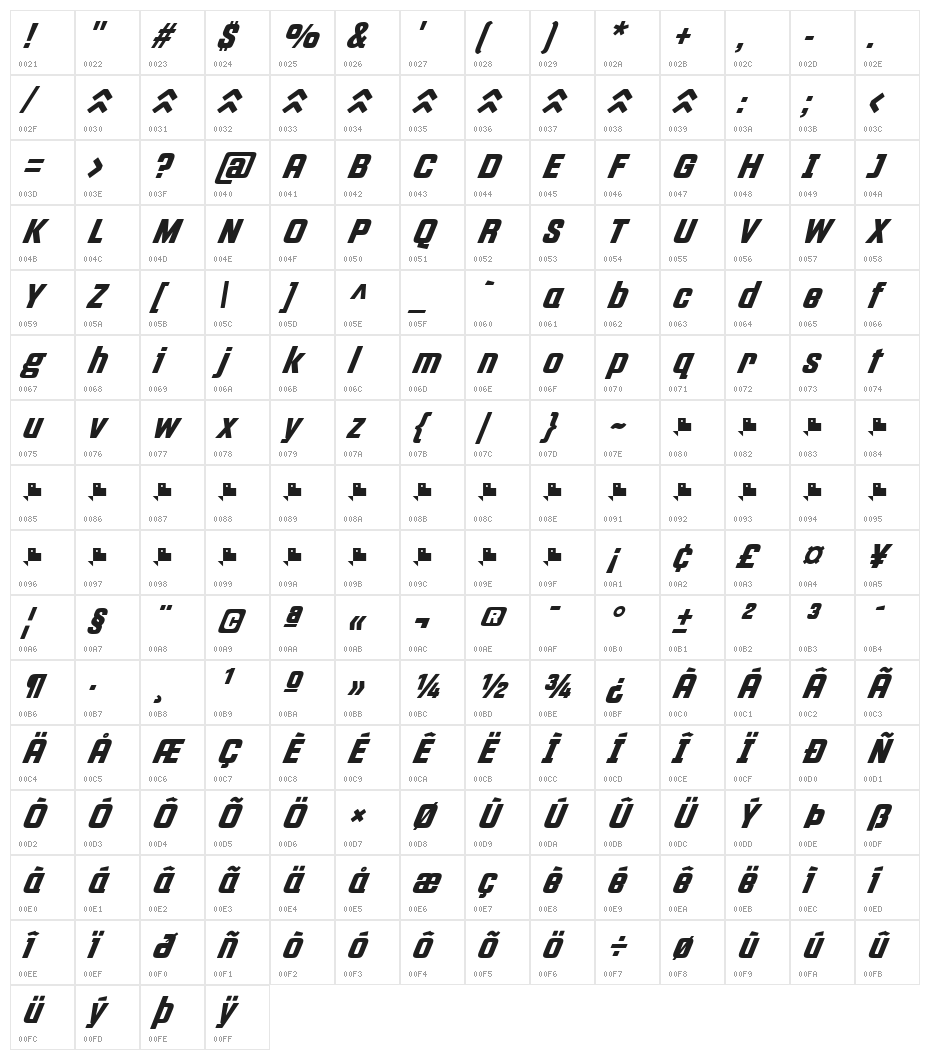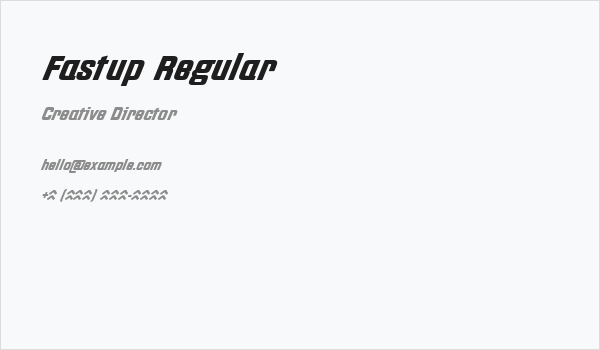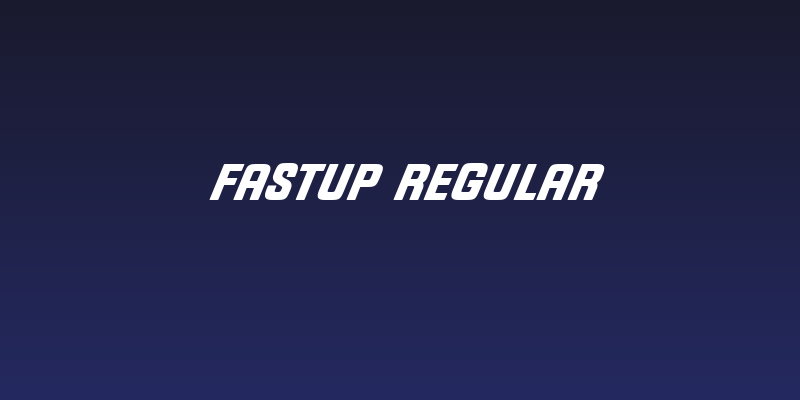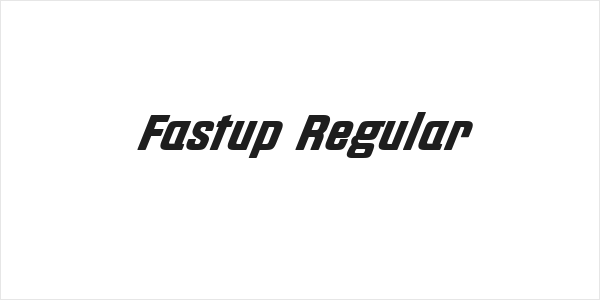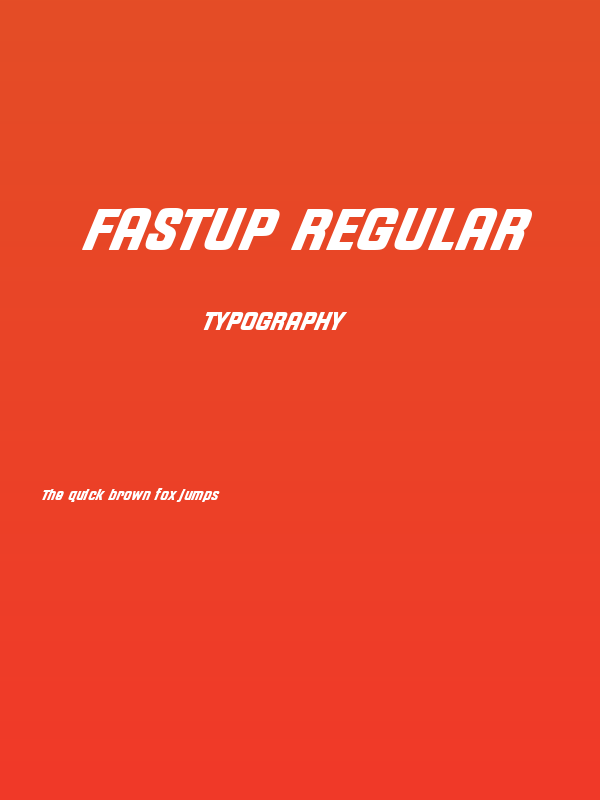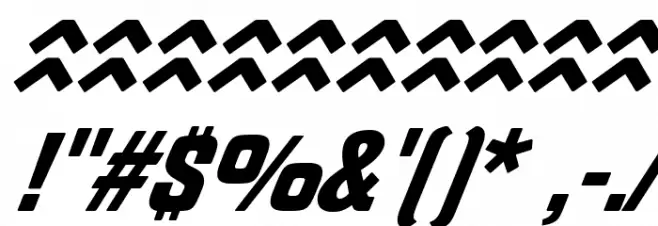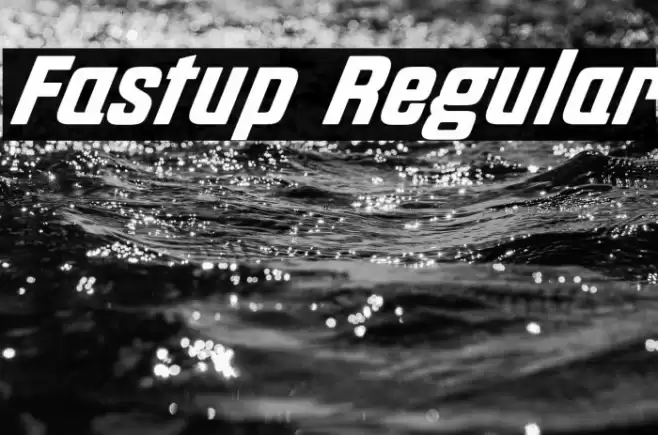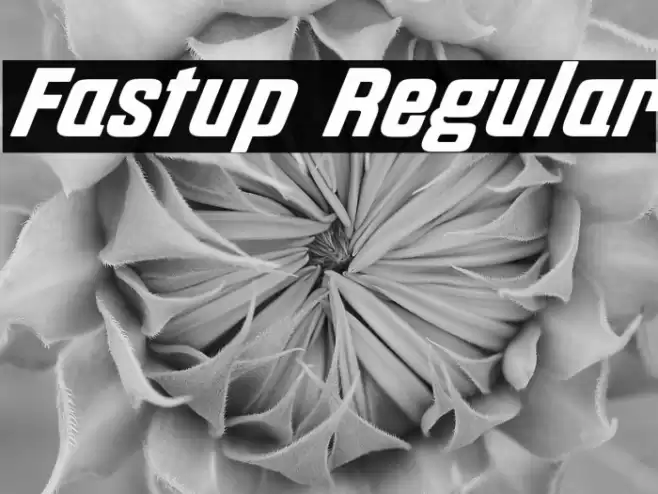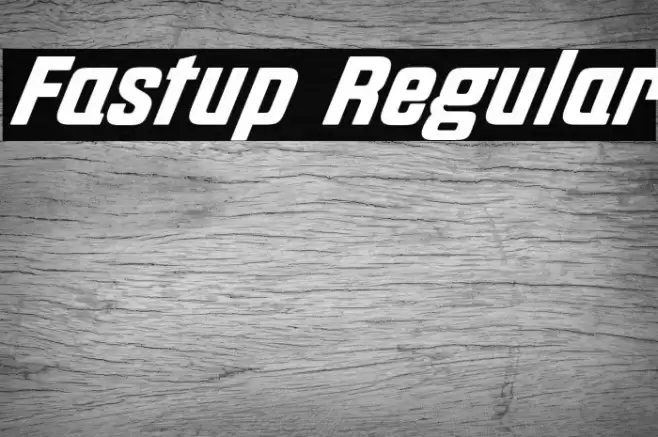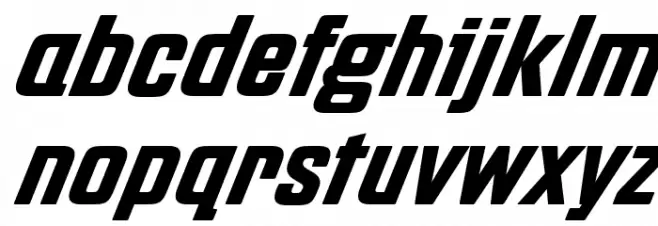
Fastup Regular Font
Fastup Regular Description
This font features a bold and dynamic style with a forward-leaning italicized appearance, giving it a sense of motion and speed. The characters are slightly condensed, enhancing the compact and energetic look. The strokes are thick and consistent, providing a strong visual impact. The uppercase and lowercase letters maintain a uniform style, with sharp angles and clean lines. The numbers and special characters are designed to match the overall aesthetic, making them suitable for various applications. This font's modern and sporty vibe makes it ideal for projects that require a sense of urgency or excitement.
Fastup Regular and Small Caps is available in two weights (Regular and Bold), geometric design fonts, with a rounded finish on the vertices that provides warmth, with short ascenders and descenders offers a more compact set of letters, the 22° inclination
| Proposed Projects | Ideal for sports branding, automotive advertisements, dynamic posters, and energetic logo designs. |